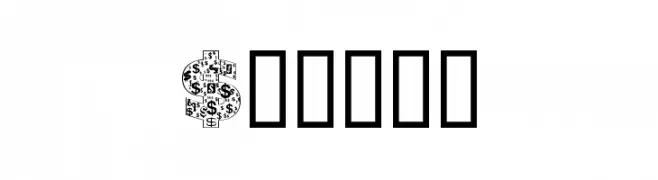
A decorative font featuring playful money-themed illustrations.
Cartoon dog illustrations replace letters and numbers in a decorative, playful style.
Illustrative dingbat font with sports-themed icons.
Fantasy-themed clipart dingbat font with detailed illustrations.
A decorative font with detailed vehicular illustrations for each character.
Fantasy-themed clipart dingbat font with hand-drawn illustrations.
A decorative font with playful dog illustrations replacing traditional characters.
A decorative font with birthday-themed illustrations for each character.
A bold, retro-inspired font with geometric and dynamic shapes.
A bold, modern font with a unique dual-line style for dynamic visual impact.